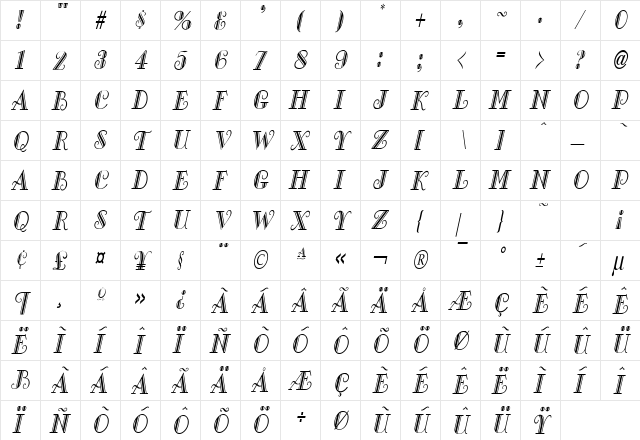
Gallery Condensed Italic Font Preview
Design Context for Gallery Condensed Typeface
Gallery Condensed is a composed and adaptable typeface that performs quietly and consistently across a wide range of design contexts. The dynamic lean of this cut emphasises speed and emphasis in any layout. The condensed width makes it efficient for tight spaces without sacrificing legibility.